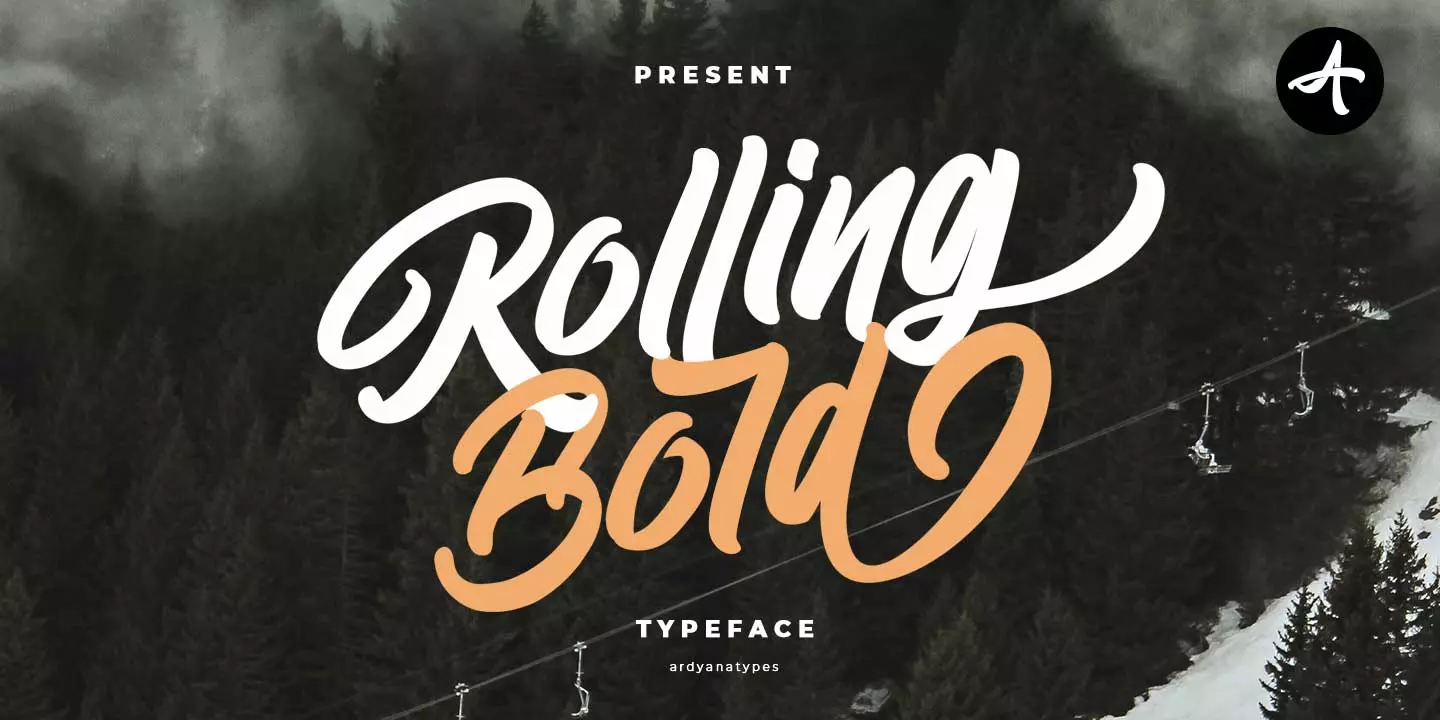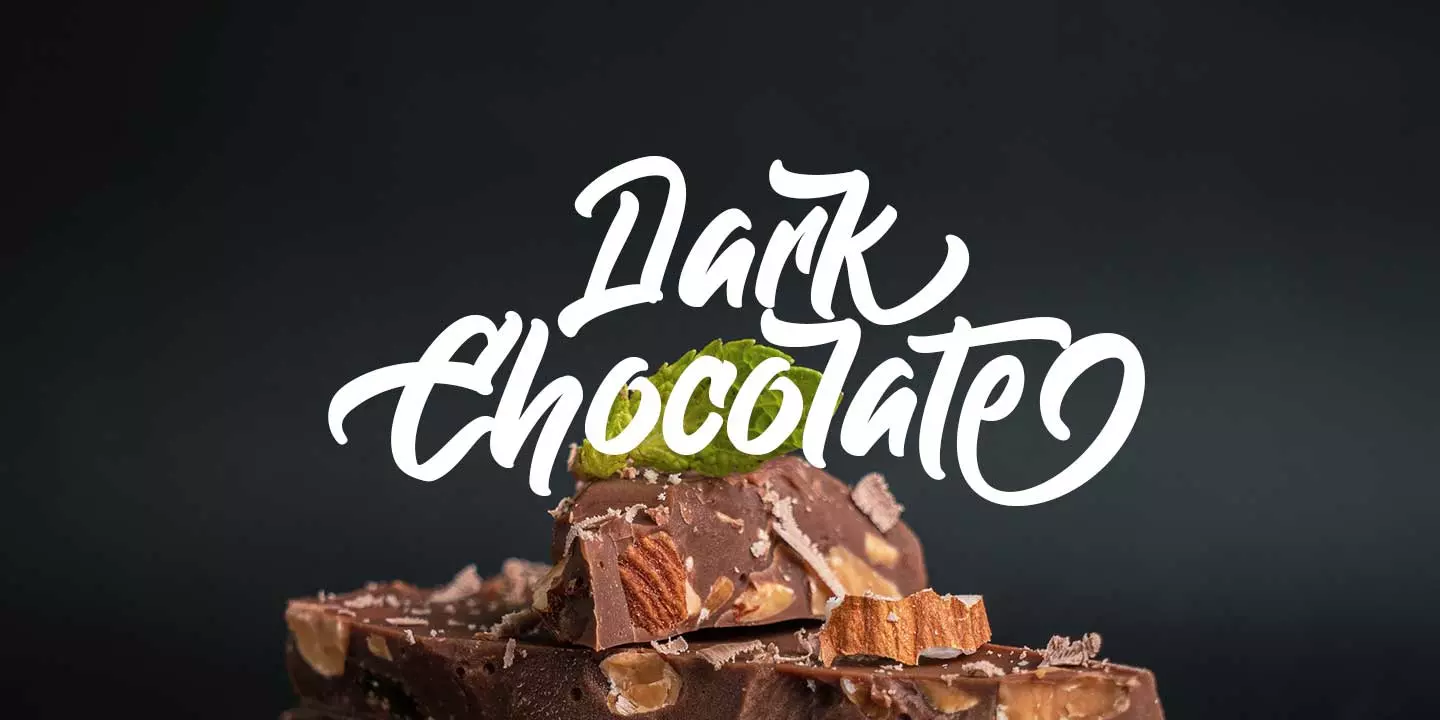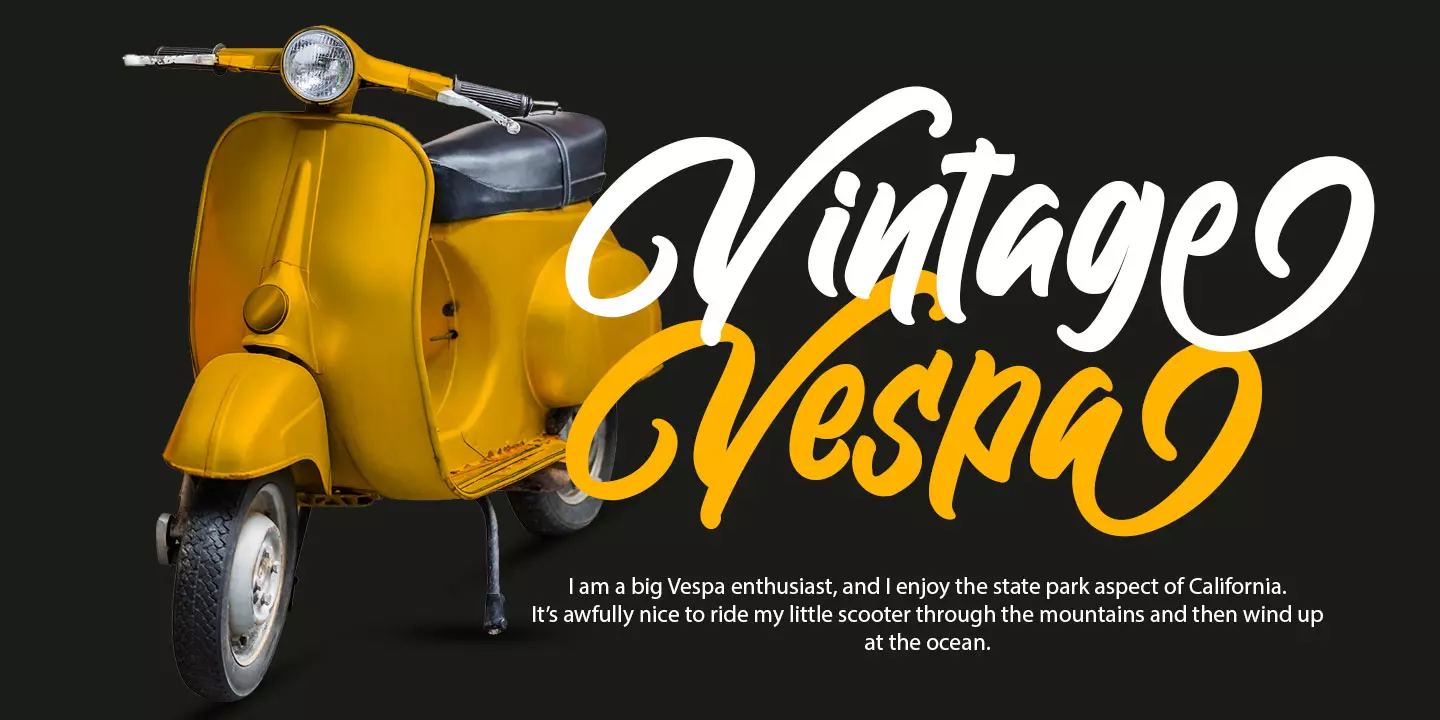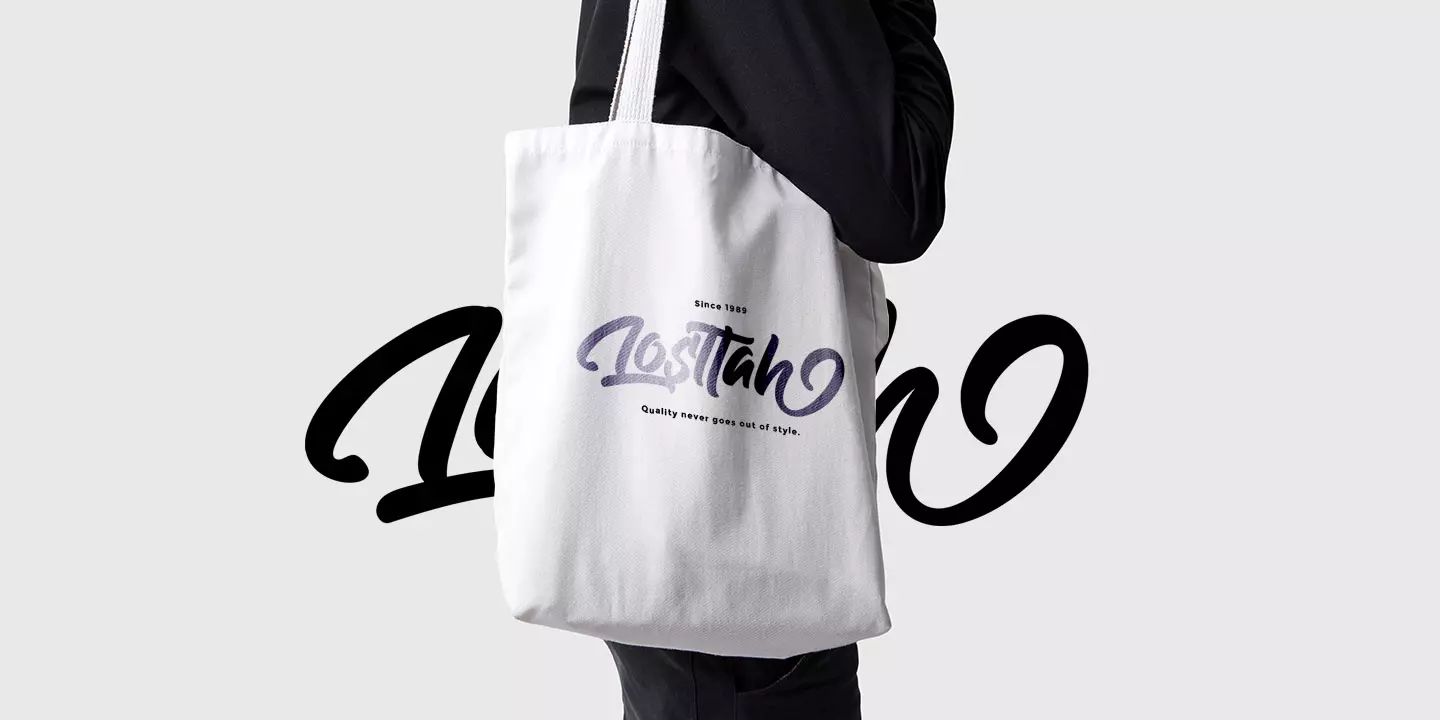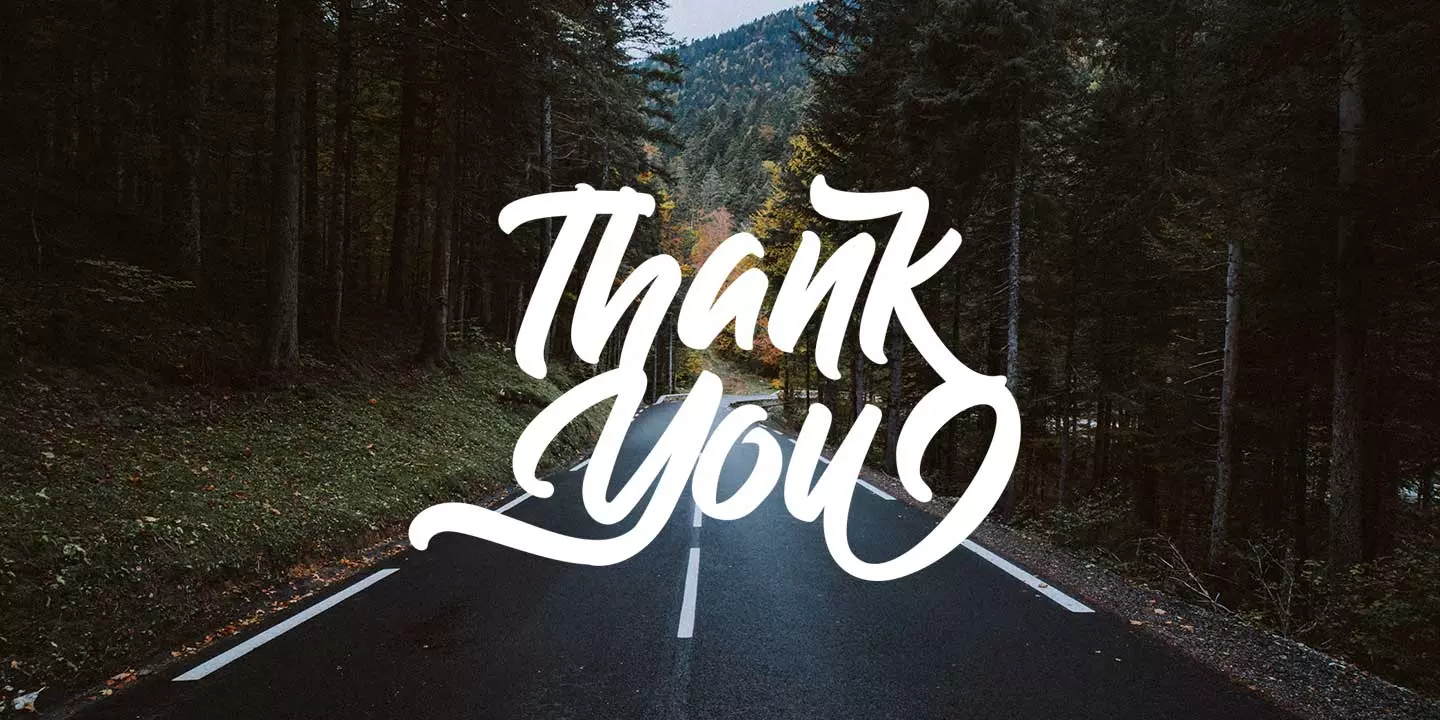
RollingBold
Rolling Bold is a modern script font designed to make your designs look more attractive. It will be very easy to use and will save you time in designing. Rolling Bold also has many opentype features such as ligatures, and alternates. It will be very suitable for use as logos, posters, packaging, merchandise, social media & greeting cards.